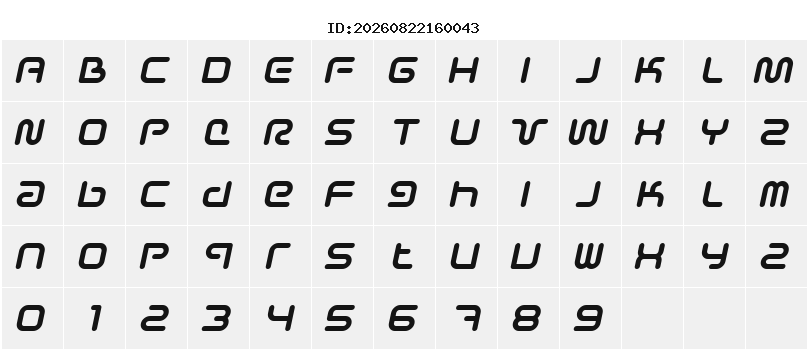
• Font Name: Sci Fied
• Full Font Name: Sci Fied Italic
Sci Fied.ttf is a modern, elegant sans-serif font designed for ultimate readability and visual harmony. Perfect for branding, headlines, web design, and print materials.